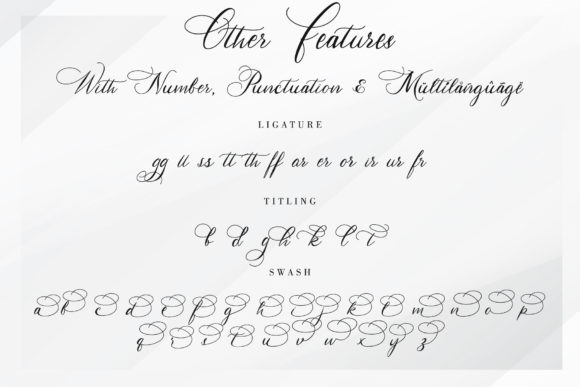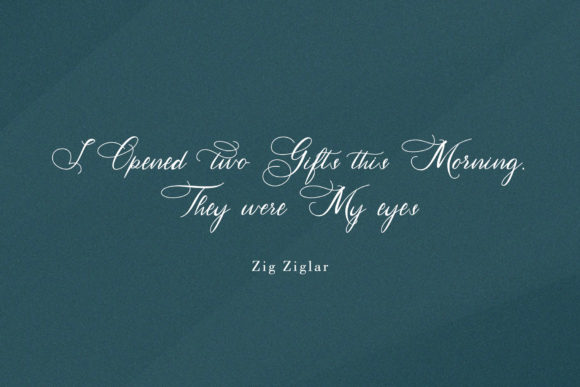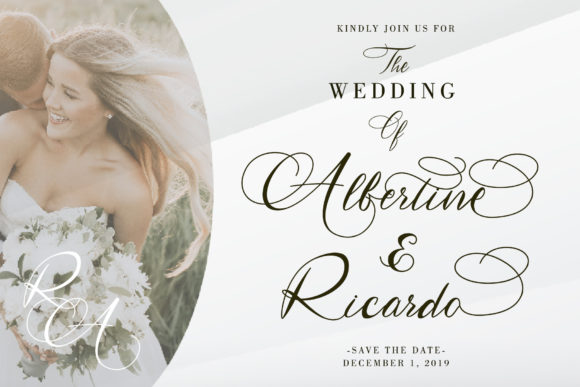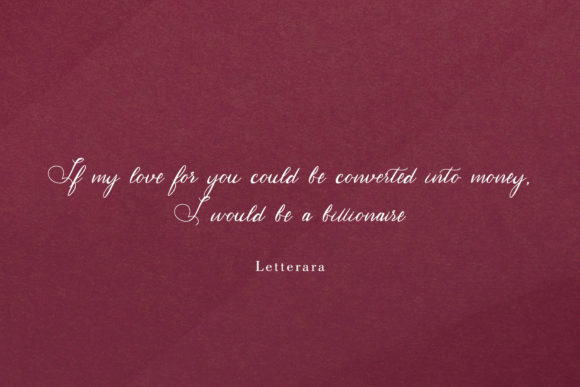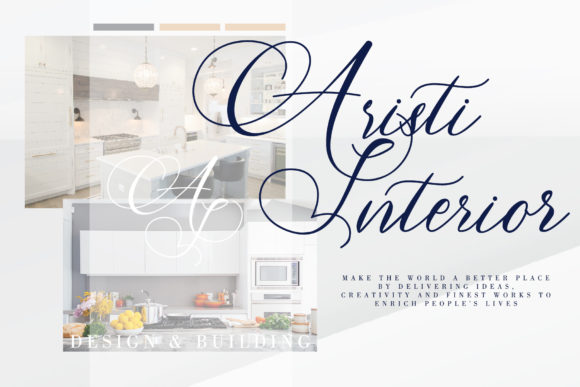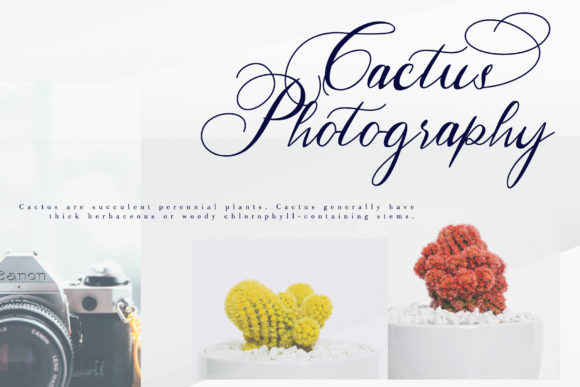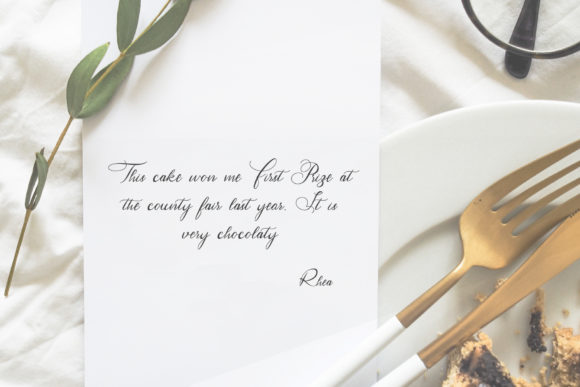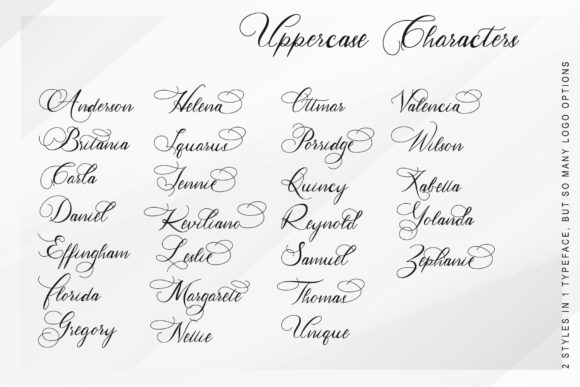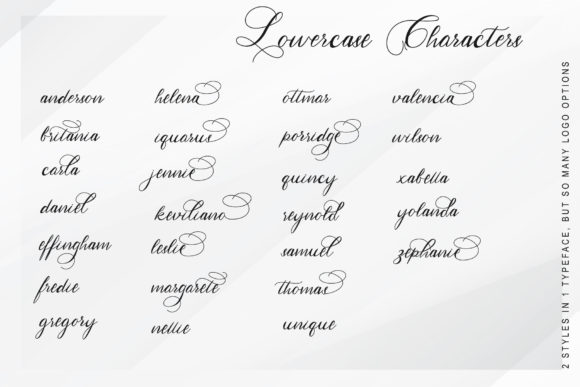
Hertina Font
About Hertina Font
Hertina is a beautiful modern script font featuring flowing letters. It will add a romantic touch to any crafting project!